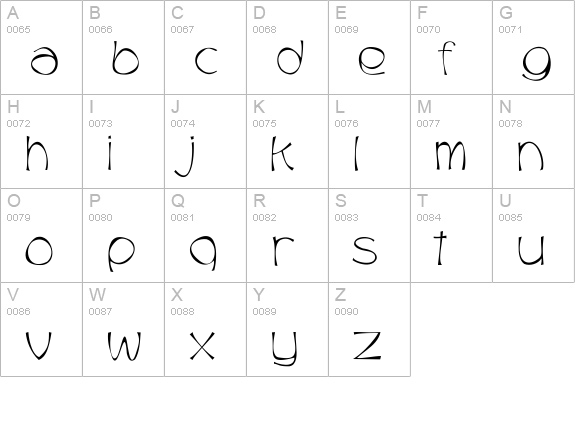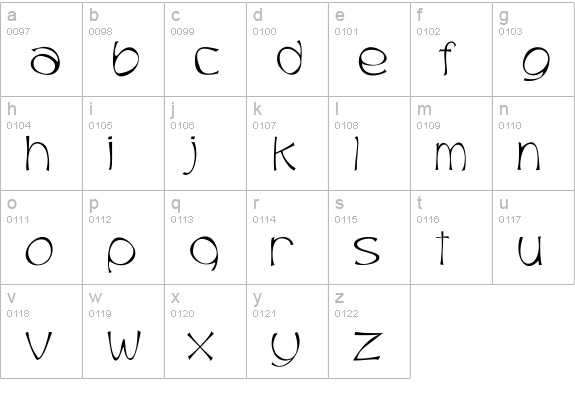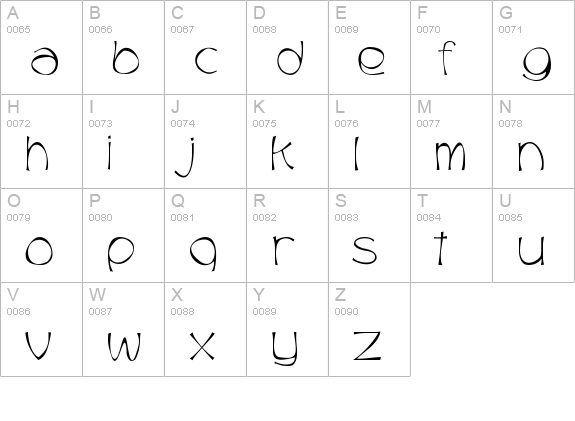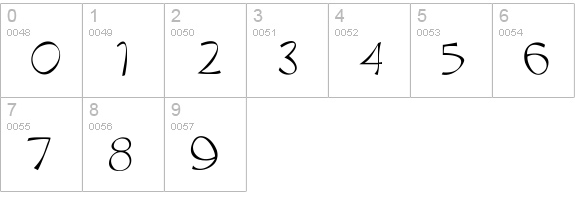
Trubble Font Details
Introducing Trubble, a captivating and versatile font that effortlessly combines elegance with a touch of playfulness. With its unique and eye-catching design, Trubble is guaranteed to make a lasting impression on any project. Trubble is the perfect choice for a wide range of creative endeavors, from branding and logo design to advertising and social media graphics. Its balanced and carefully crafted letterforms give your words a sense of harmony and sophistication, ensuring that your message is conveyed with utmost clarity and impact. This font is not only visually stunning, but it also offers a remarkable level of versatility. Whether you're looking for a bold and attention-grabbing headline or a subtle and refined body text, Trubble has got you covered. And the best part? Trubble is available to download for free at FontsMarket.com. Yes, you read that right - this incredible font can be yours without spending a dime. Embrace the freedom to unleash your creativity without breaking the bank. So why wait? Elevate your designs to new heights with Trubble. Download it now and experience the power of this remarkable font that's just a click away at FontsMarket.com.